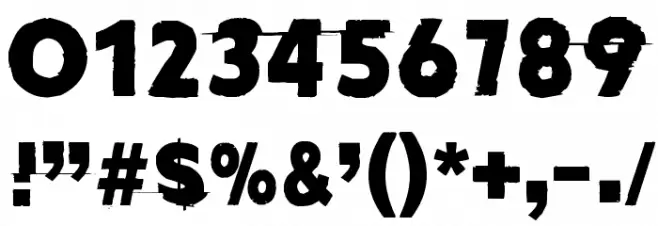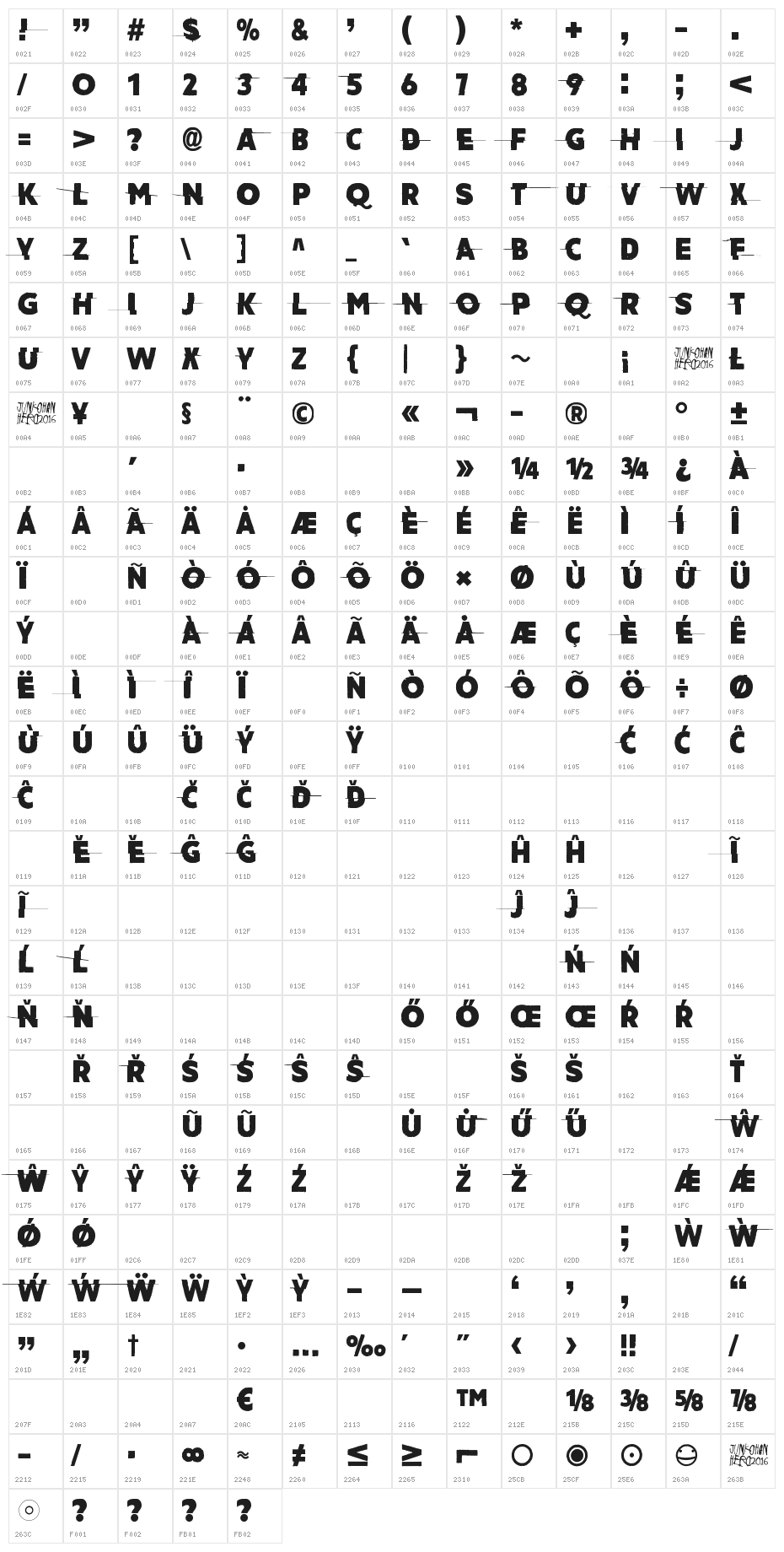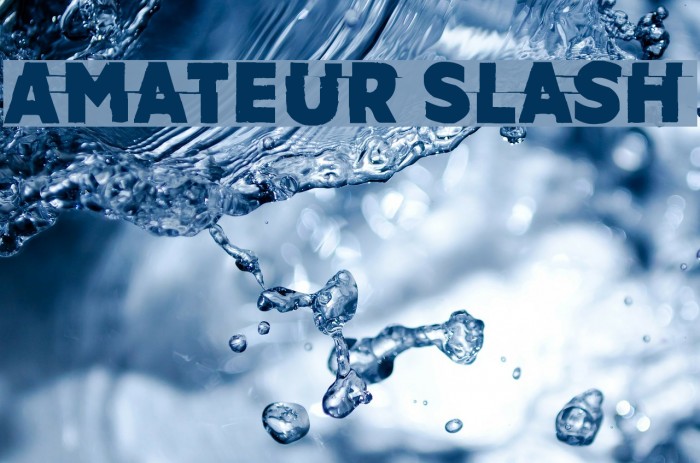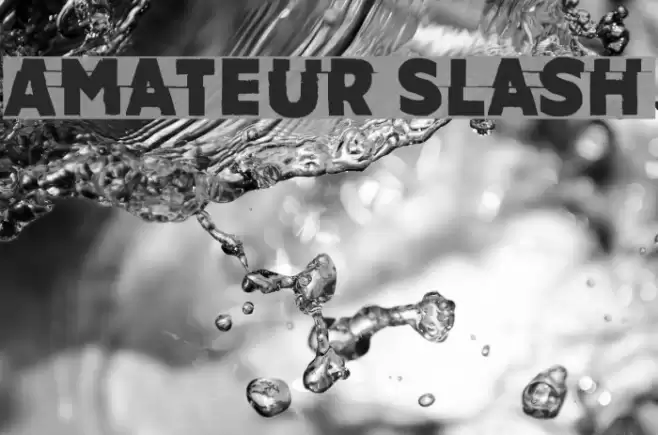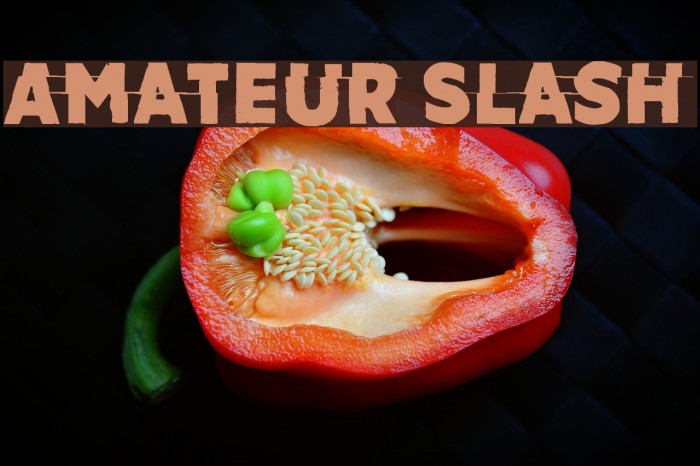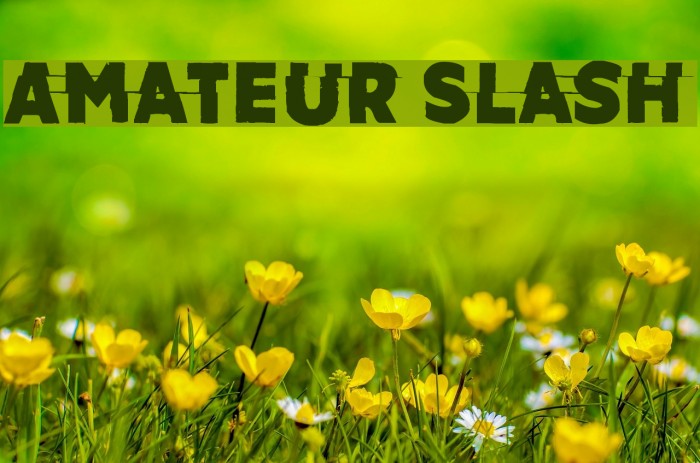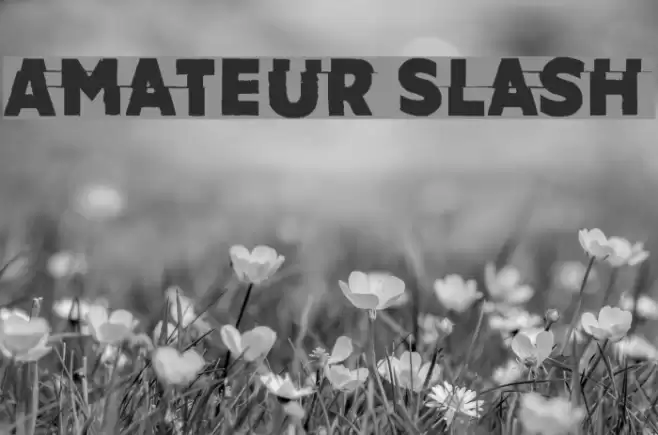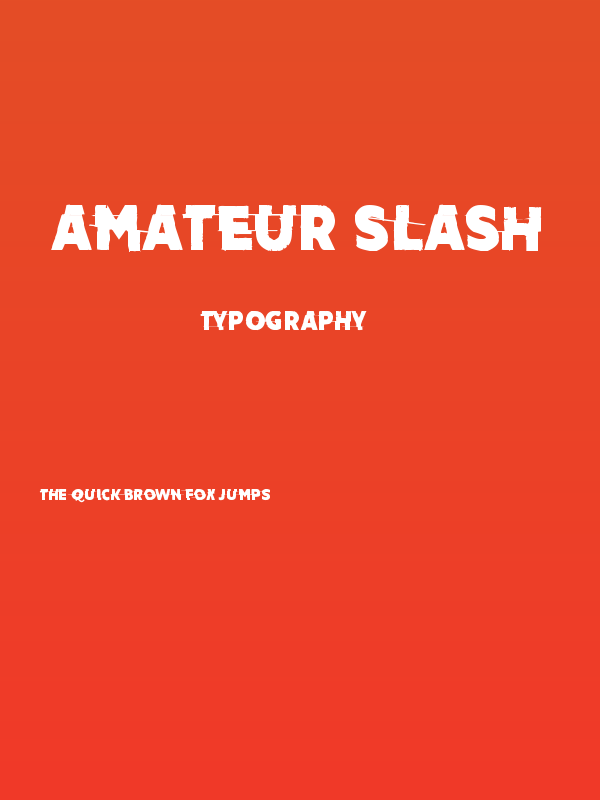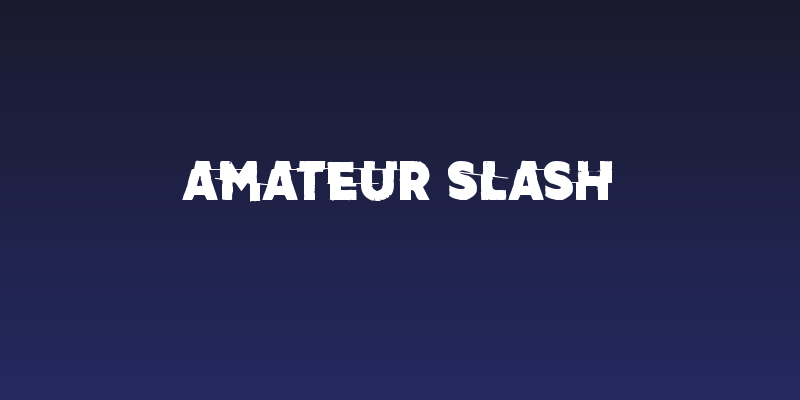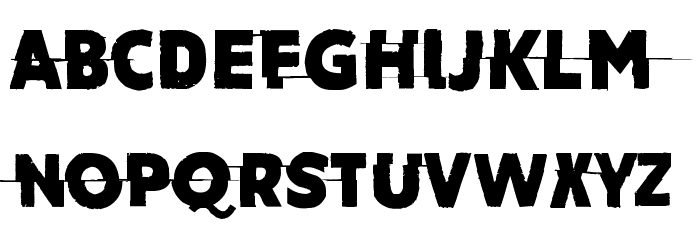
Amateur Slash Font
Amateur Slash Description
This font features a bold and striking design with a unique slashed effect running through each character, creating a sense of movement and dynamism. The uppercase and lowercase letters are consistent in their boldness, with a rough, textured appearance that adds a gritty, urban feel. The numbers and special characters maintain this aesthetic, ensuring a cohesive look across all glyphs. The font's style is both modern and edgy, making it suitable for projects that require a strong visual impact. Its distinctive slash through the characters gives it a rebellious and unconventional vibe, perfect for attention-grabbing headlines or branding that seeks to stand out.
| Overall Style | Modern, Edgy |
| Proposed Projects | Ideal for edgy branding, music album covers, streetwear designs, and posters. |